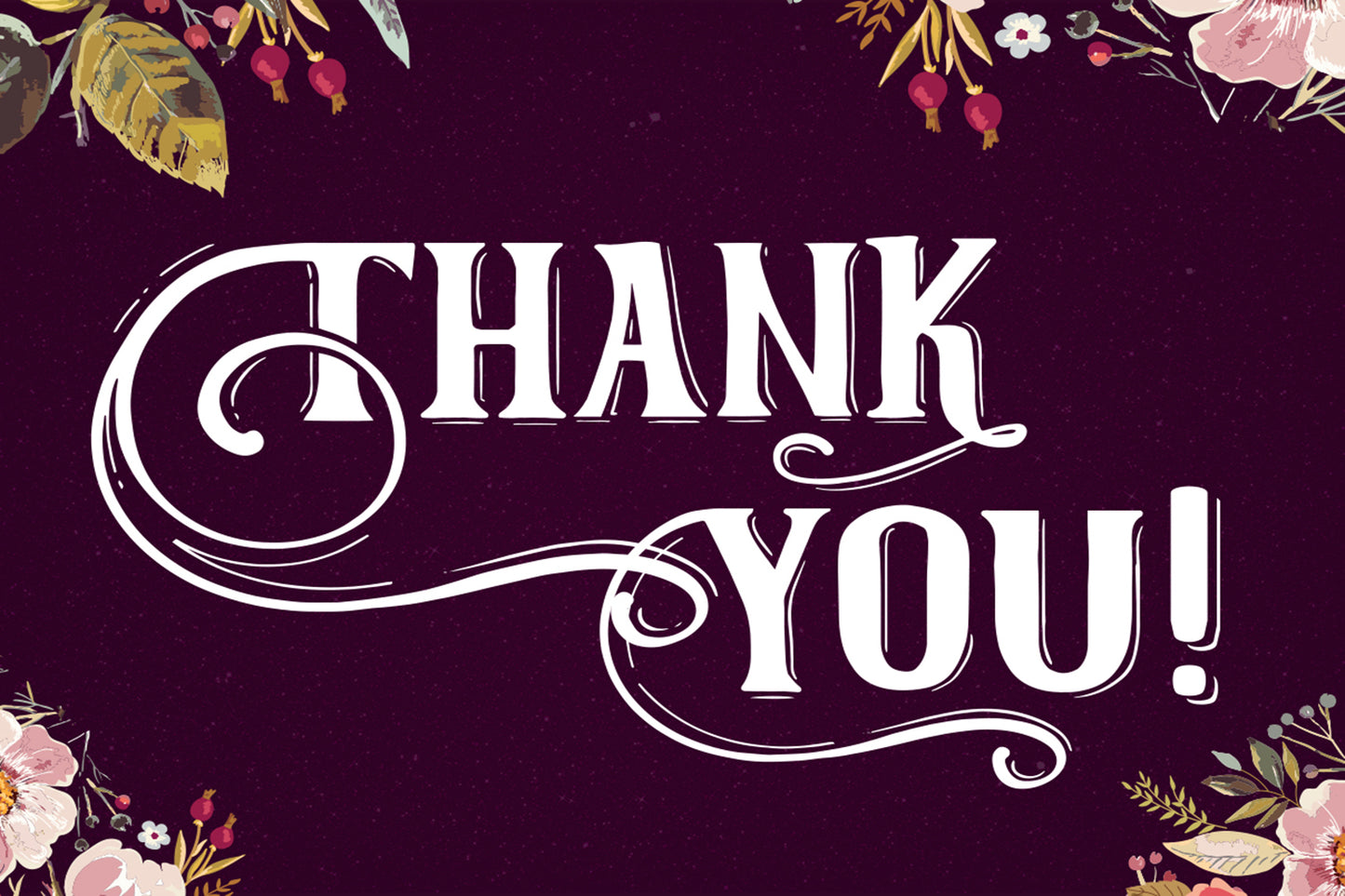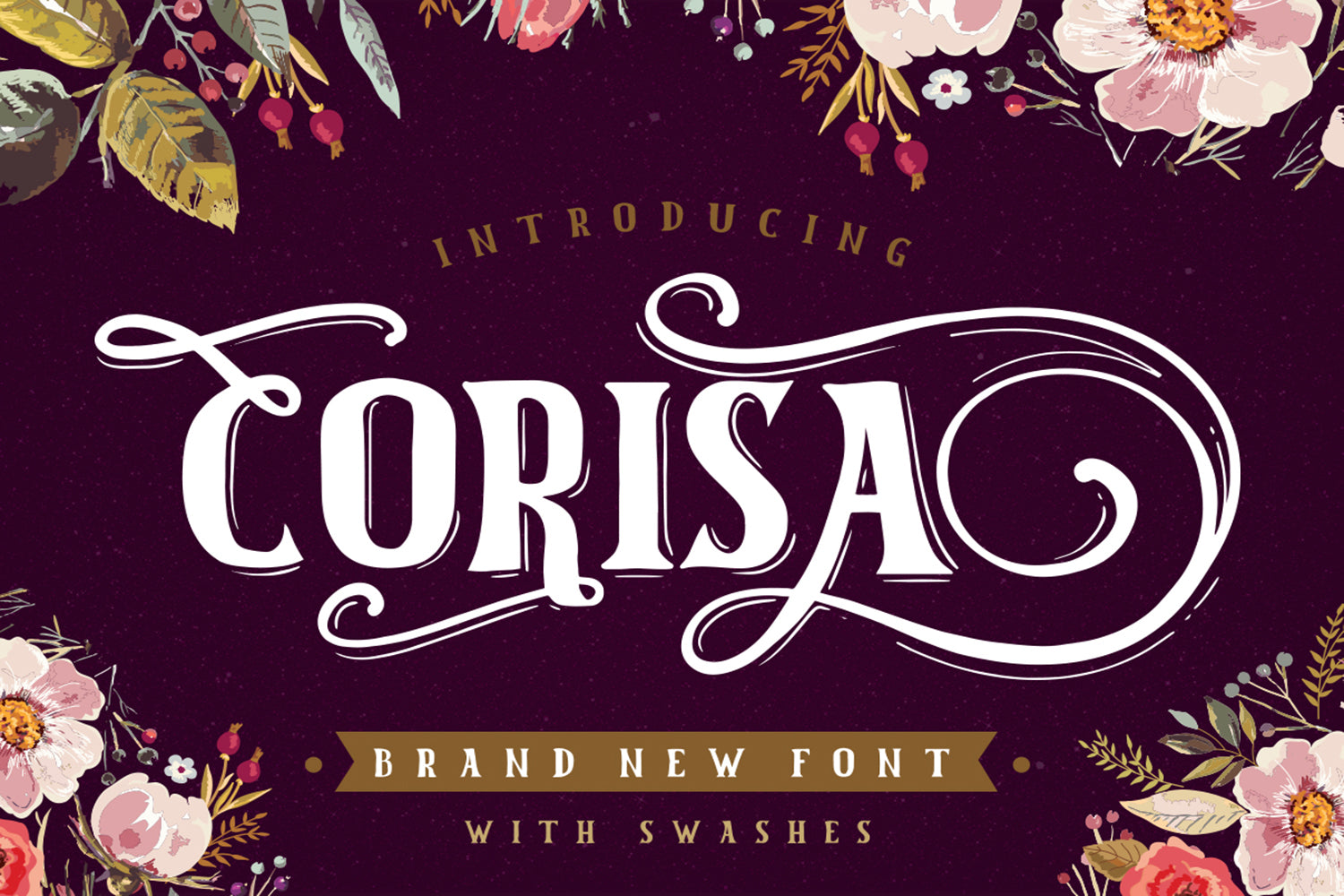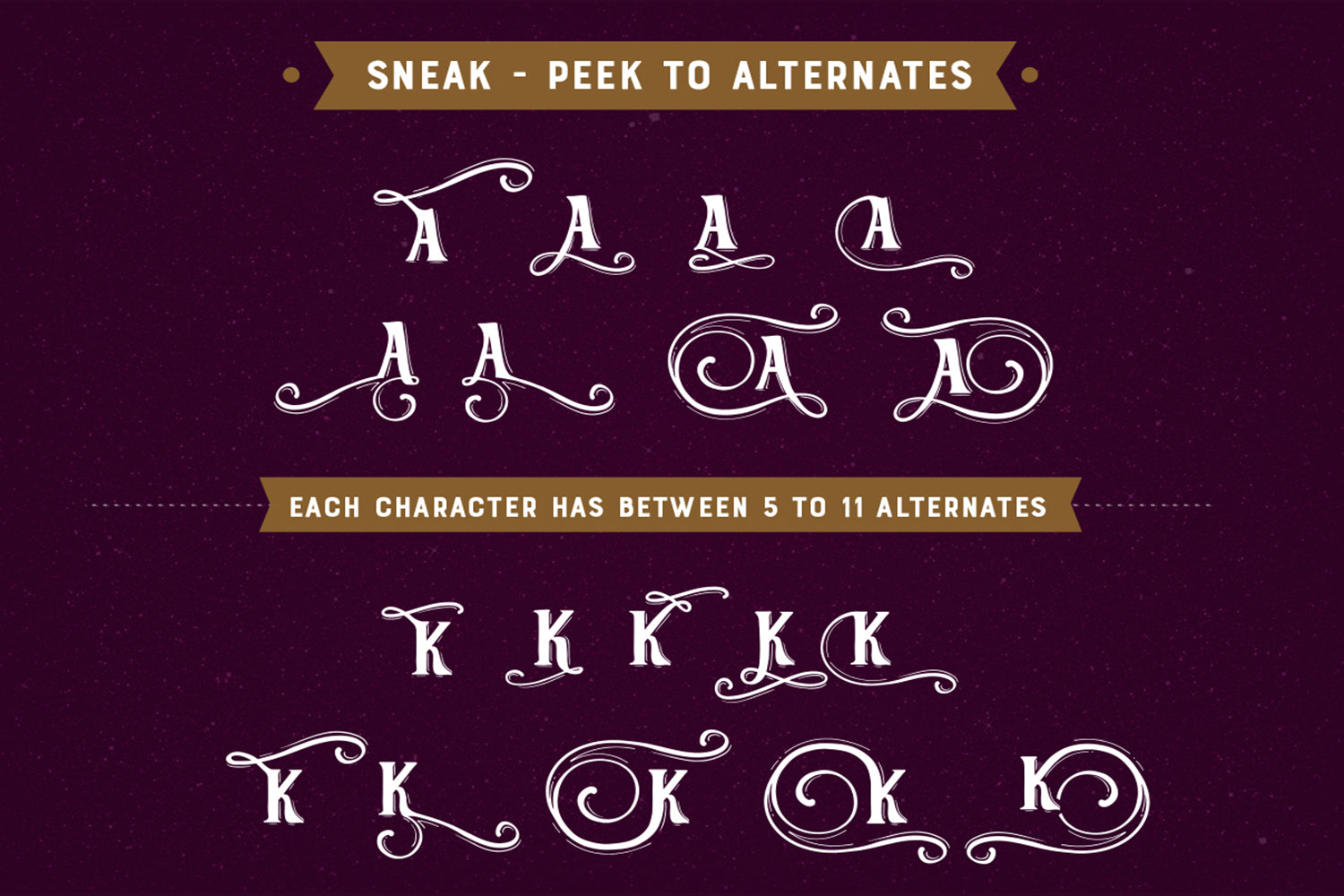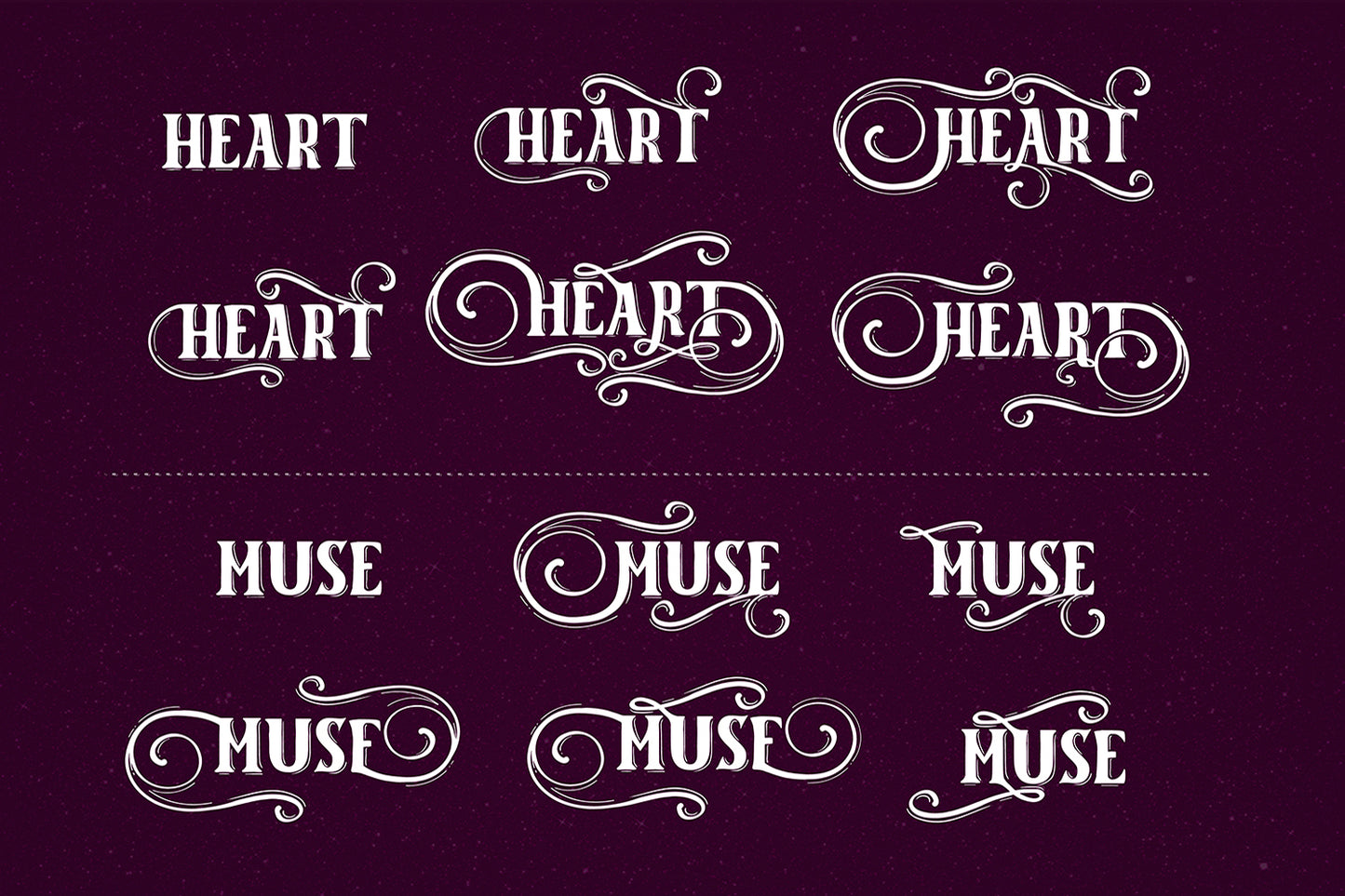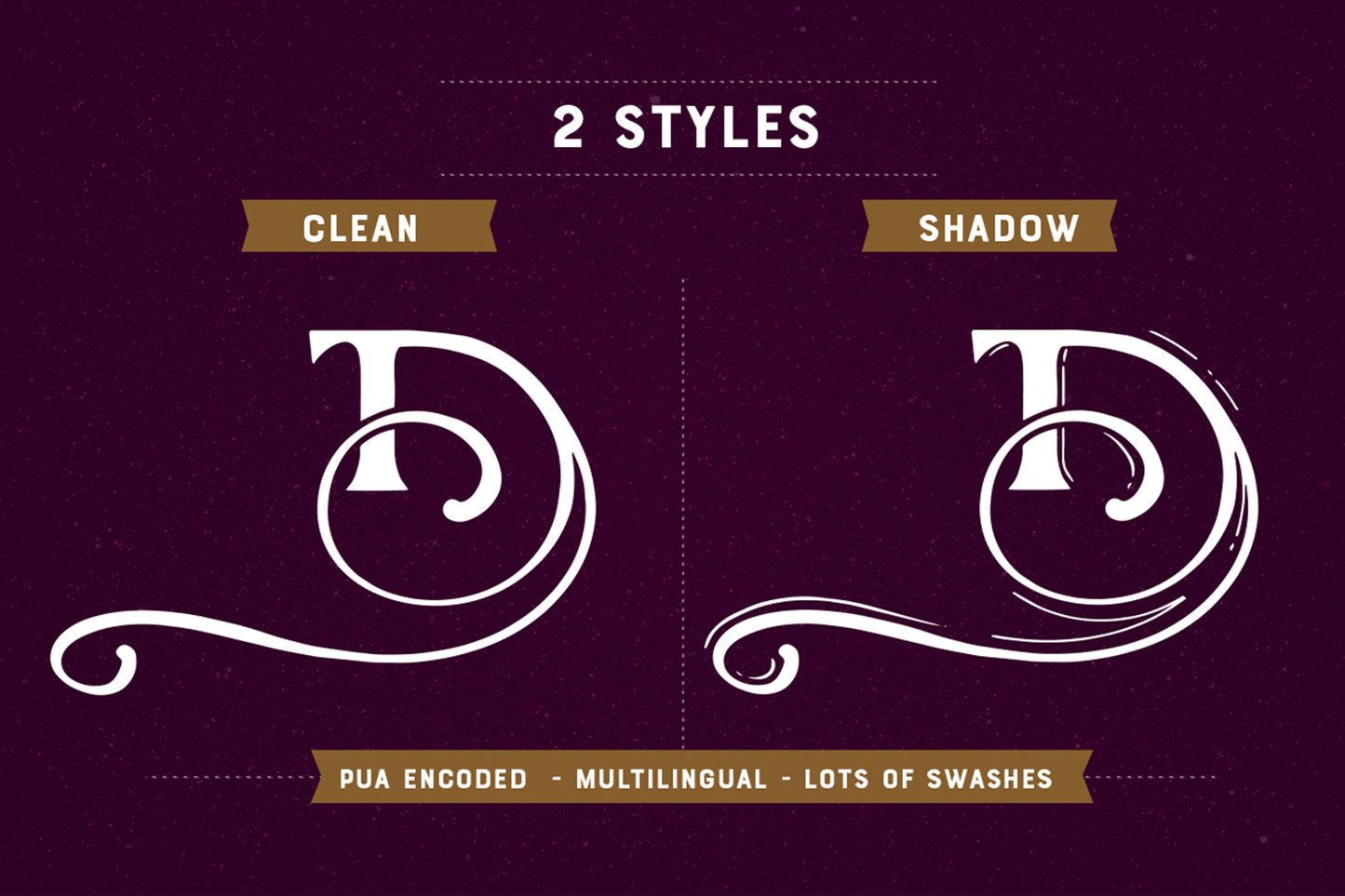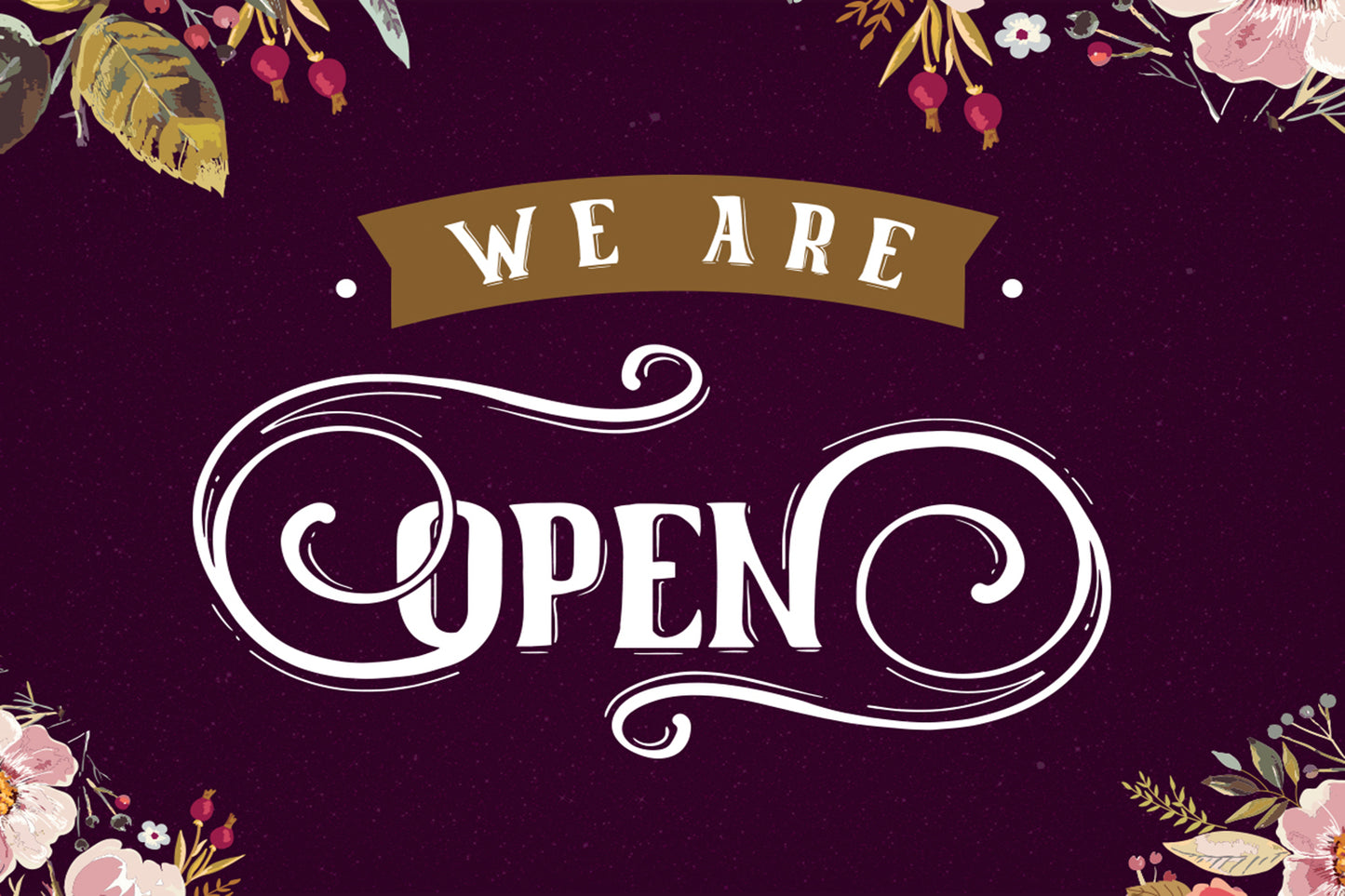
Corisa display font with swashes
Corisa is a display font
with lots of alternates to play with.
You can easily create t-shirt
designs, mugs, or just play with typography using the multiple swashes
included.
Each character has between 5 and 11 alternates.